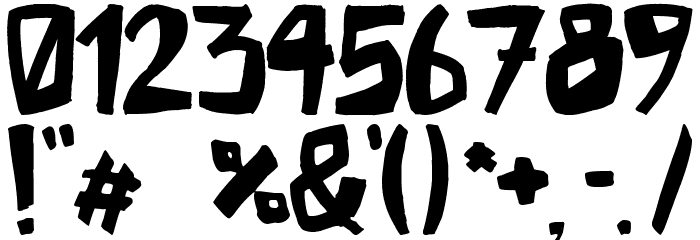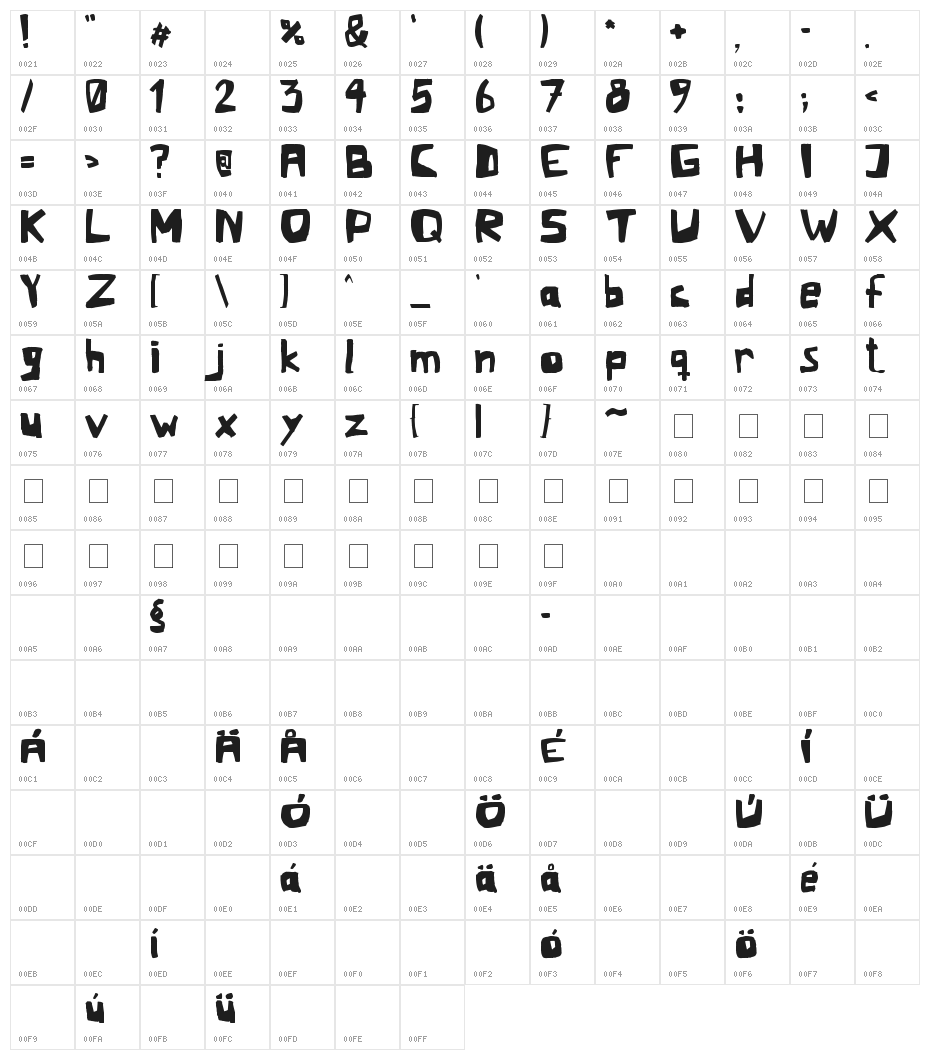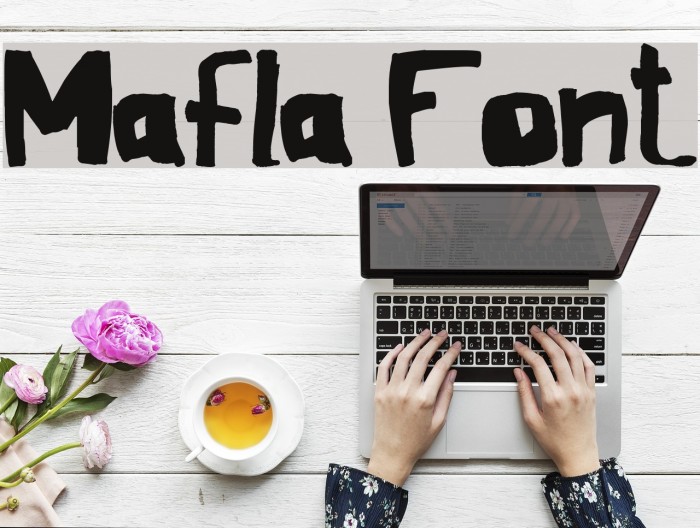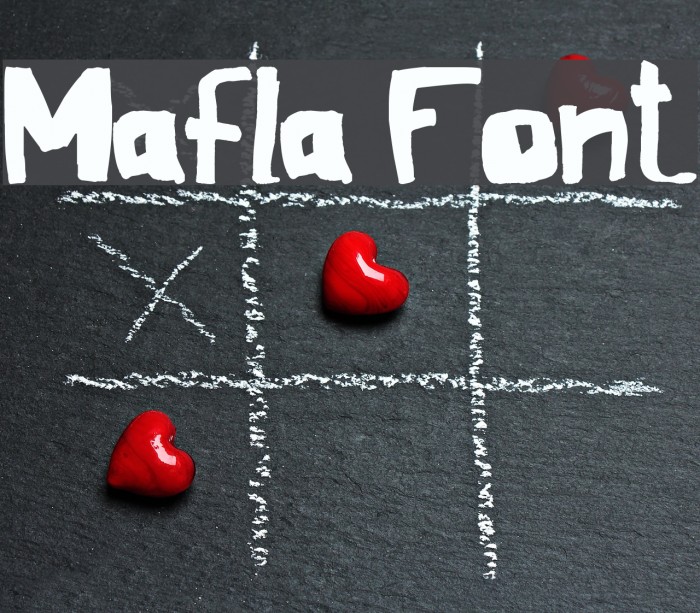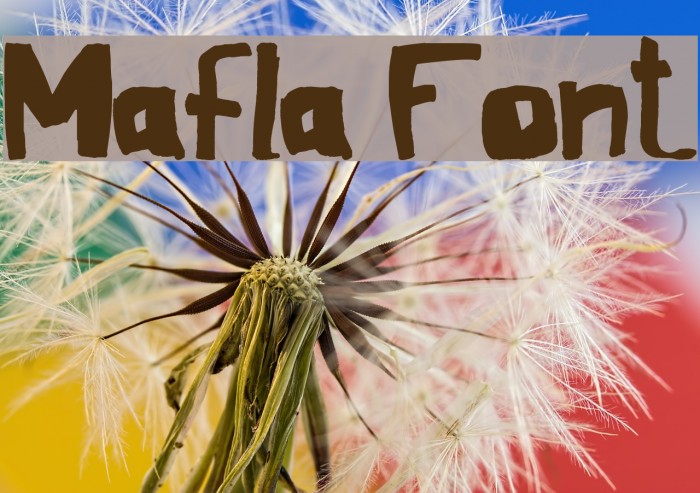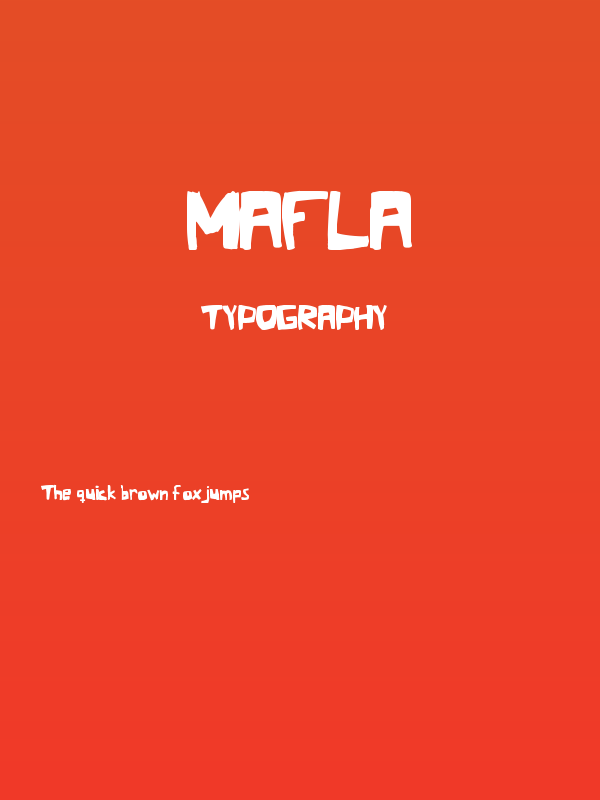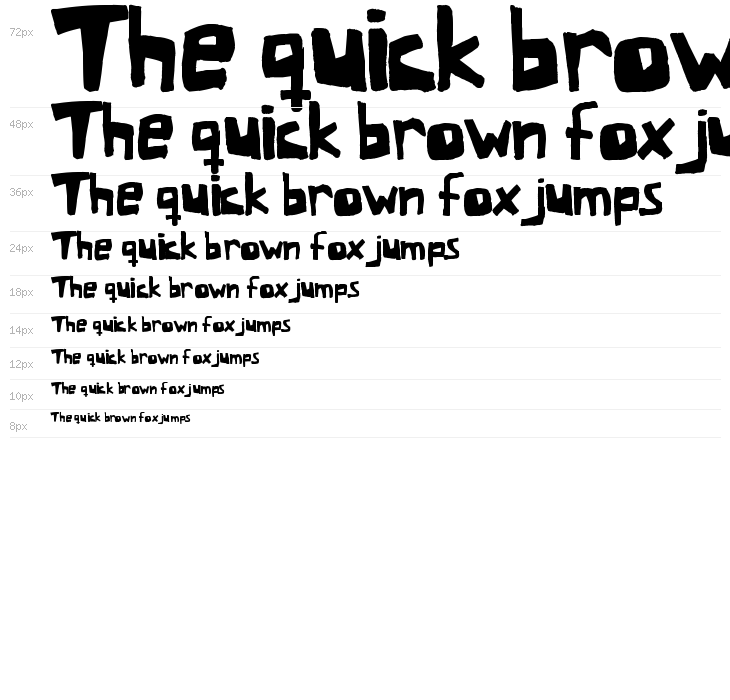
Mafla Font
Mafla Description
This font exhibits a bold and expressive style, characterized by its irregular and hand-drawn appearance. The letters are thick and uneven, giving a playful and artistic feel. The uppercase and lowercase letters maintain a consistent style, with exaggerated curves and angles that add to its unique charm. The numbers and special characters follow the same design principles, ensuring a cohesive look across all glyphs. This font's distinctive style makes it stand out, perfect for creative projects that require a touch of individuality and flair.
| Proposed Projects | Ideal for posters, album covers, artistic branding, and creative social media graphics. |